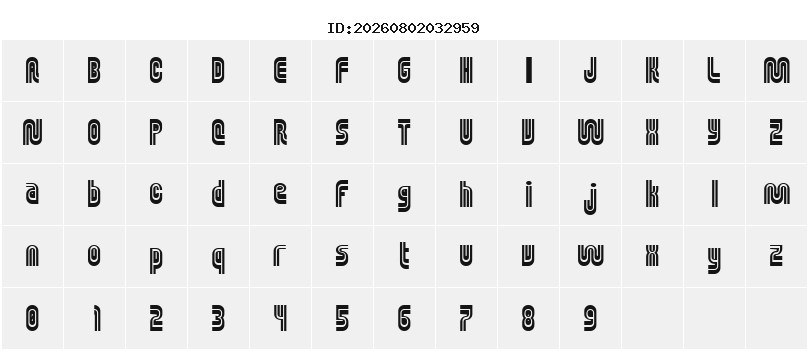
MUNIficent Preview
About MUNIficent.ttf
MUNIficent.ttf is a modern, elegant sans-serif font designed for ultimate readability and visual harmony. Perfect for branding, headlines, web design, and print materials.